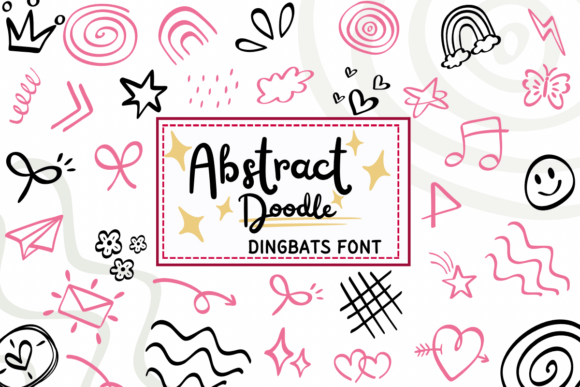
Unlock Your Creativity with Abstract Doodle Font
Remember that moment when a blank canvas or a fresh sheet of paper stared back at you, begging for creativity to flow? The excitement of bringing your ideas to life, of making something unique and personal, is what drives designers to push boundaries and experiment with new techniques. For those who crave this sense of freedom, the Abstract Doodle Font is a game-changer.
This beautiful dingbats font is designed to add a touch of whimsy and personality to your creative projects. From wedding invitations to DIY crafts, and from decorations to logos, the Abstract Doodle Font is the perfect companion for any designer looking to add an abstract theme to their work. Its versatility and unique aesthetic make it a valuable asset for designers seeking to stand out from the crowd.
Abstract Doodle Font Key Features
- Unique Characteristics: The Abstract Doodle Font is a hand-drawn, expressive font with a mix of geometric and organic shapes, creating a unique and playful aesthetic.
- Character Set: The font includes a wide range of characters, including uppercase and lowercase letters, numbers, punctuation marks, and special characters, making it suitable for everyday use.
- Stylistic Alternates: The font includes stylistic alternates, allowing designers to add an extra layer of personality to their text, making it perfect for creative projects and branding.
Designer Review: Abstract Doodle Font
Overall, I’d say the Abstract Doodle Font is a fun and quirky addition to any design project. ✨ The irregular shapes and flowing lines give it a unique, hand-drawn feel that’s perfect for creative and artistic projects. I’ve used it for a few logos and branding materials, and it’s been a great choice for those who want to add some personality to their design.
Here are some specific things that work well with the Abstract Doodle Font:
- ✨ The font’s irregularity adds visual interest and makes it stand out in a crowd.
- ✨ The flowing lines give it a sense of movement and energy.
- ✨ It’s perfect for creative and artistic projects, such as illustrations, graphics, and typography-based designs.
- ⚠️ The font may not be suitable for projects that require precision and clarity, such as technical documentation or financial reports.
- ⚠️ The irregular shapes and lines can make it difficult to read in certain contexts, such as small text or at high resolutions.
Overall, I’d give the Abstract Doodle Font 4 out of 5 stars. It’s a great choice for designers who want to add some personality and flair to their projects, but it may not be the best choice for every project.
Abstract Doodle Font is perfect for:
- Creating playful and whimsical designs.
- Adding a personal touch to invitations and party decorations.
- Designing children’s books and educational materials.
- Experimenting with mixed media and art journaling.